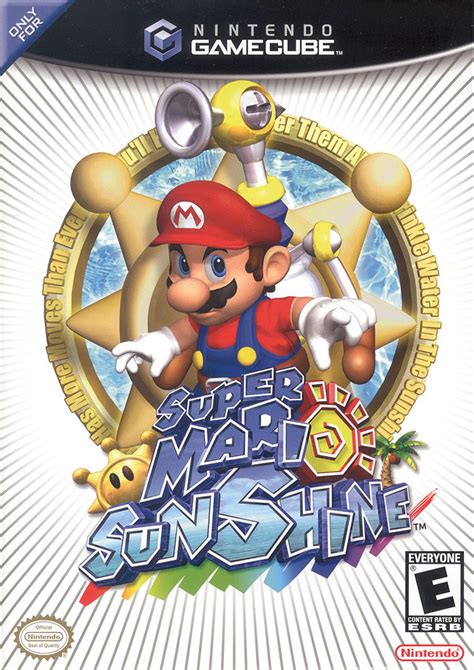
Mario Sunshine Font. Super mario script 3 is accurate, this is the gamecube era. Web dec 12, 2020 at 00:01.
Super mario sunshine's text font. Super mario script 3 is accurate, this is the gamecube era. Web (pophappiness) super mario sunshine text font. This is a replica of the text font that appear in super. Web dec 12, 2020 at 00:01.
Web (pophappiness) super mario sunshine text font. Super mario sunshine's text font. Web (pophappiness) super mario sunshine text font. Super mario script 3 is accurate, this is the gamecube era. This is a replica of the text font that appear in super. Web dec 12, 2020 at 00:01.